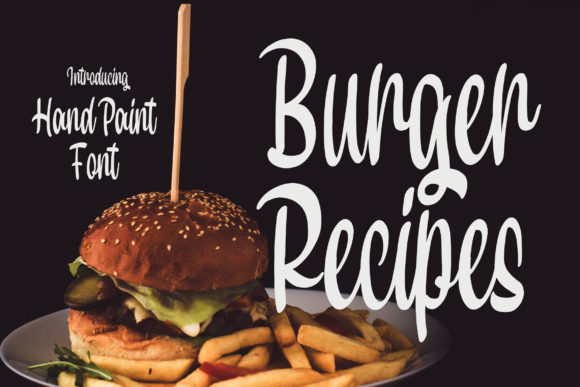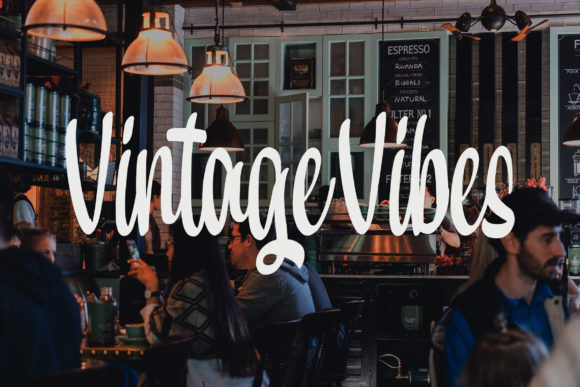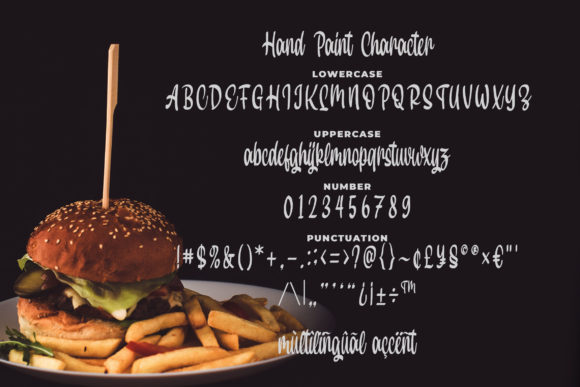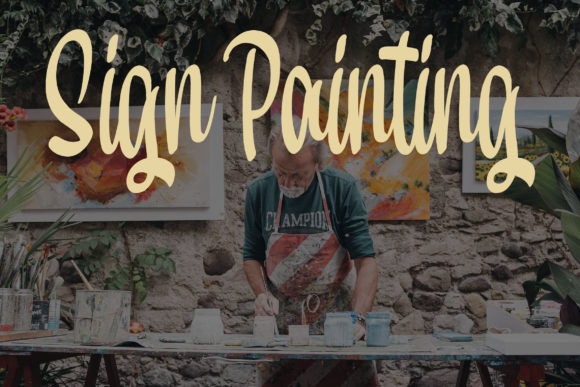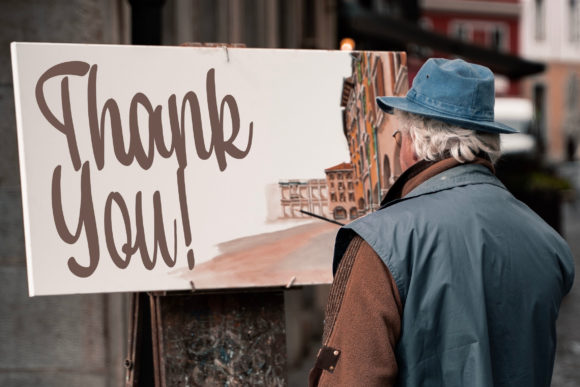
Timeless Charm for Your Design
Do you remember the first time you stumbled upon an old, handwritten letter in your grandma’s attic? The cursive script, the faded ink, and the emotional connection it evoked – it’s a feeling that can’t be replicated with digital fonts alone. For designers seeking to add a touch of nostalgia to their projects, the Hand Paint Font is a sweet old-fashioned script with a unique twist.
With its elegant, handwritten feel, the Hand Paint Font is perfect for designers looking to create a warm and inviting atmosphere in their designs. Whether it’s a wedding invitation, a brand logo, or a greeting card, this font adds a personal touch that’s hard to find in modern, digital fonts.
By incorporating the Hand Paint Font into your design projects, you can add a timeless charm that will leave a lasting impression on your audience. Its unique character and nostalgic feel make it a valuable asset for designers seeking to create memorable and emotive designs.
Key Features of Hand Paint Font
- Font Style: Hand-painted, brush-style font with a unique, artistic feel.
- Unique Characteristics: Features subtle texture and imperfections, giving it a hand-crafted, organic look.
Hand Paint Font Review
As a designer, I was excited to dive into the world of Hand Paint Font, a script font that promises to add a touch of elegance to any project. ✨
- Hand Paint Font has a beautiful, organic feel that makes it perfect for creative projects.
- The font is also highly legible, making it easy to read even at smaller sizes.
- It’s great for use in logos, headings, and other text-heavy elements.
- Hand Paint Font can be quite messy, and some characters may not be perfectly formed.
- The font may not be suitable for use in large blocks of text, as it can be overwhelming.
- The font is not as versatile as some other script fonts, and may not be suitable for use in a wide range of contexts.
Overall, I would say that Hand Paint Font is a great addition to any designer’s toolkit. It’s perfect for adding a touch of whimsy and elegance to a project, but may not be suitable for more formal or technical contexts. ✨
The Hand Paint Font is ideal for:
– Creating whimsical and playful designs
– Adding a touch of handmade charm to digital content
– Creating invitations, posters, and other event-related materials